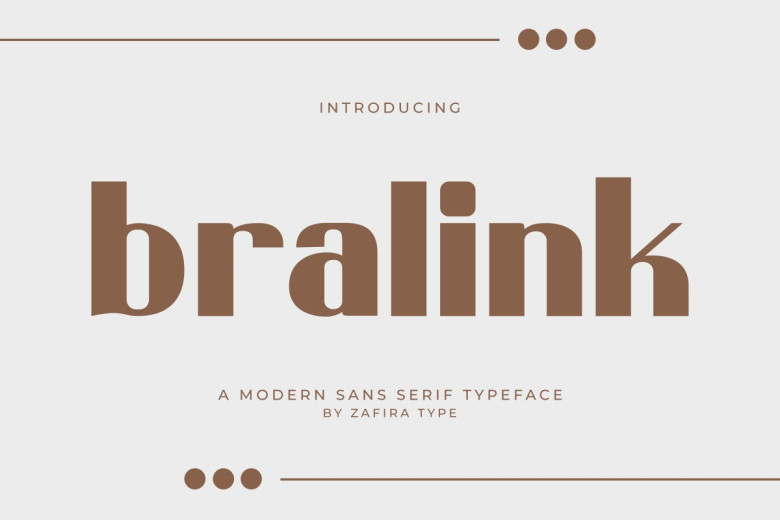
Bralink Font
Bralink is an another sans serif font type ideal for contemporary concepts and clean, minimalistic perspectives of your designs. The design is characterized by the defined lines and the equilibrium of the shapes The font is perfect for different types of use: from logo design to web design.
As such a typographic solution that does not complicate matters for designers, Bralink’s typeface is idea. Let Bralink give a fresh and crisp look to your designs and make them look more professional.
Bralink Sans Serif Font